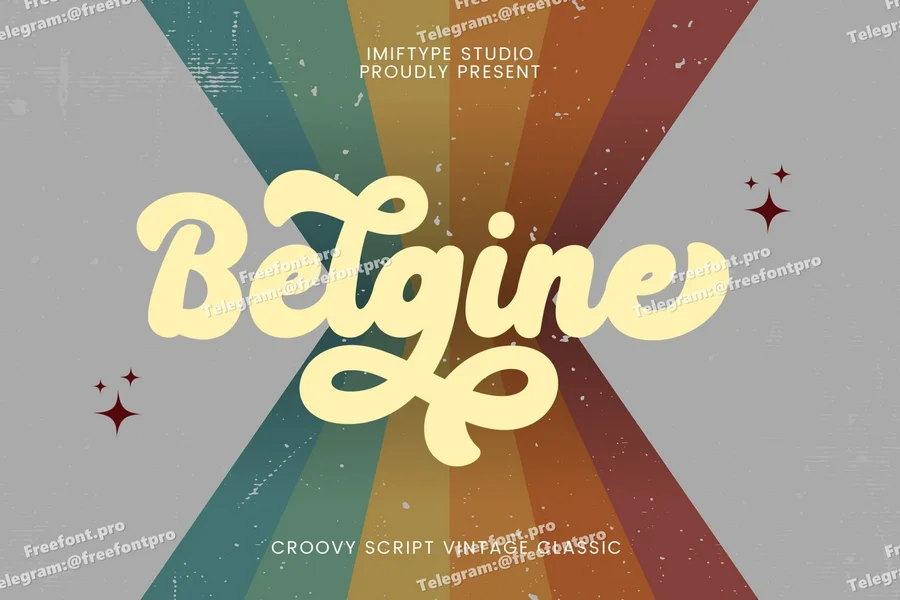
Belgine – Groovy Script Font
Belgine – Groovy Script Font is a playful and retro-inspired script font that brings a touch of nostalgia to your designs. Its rounded letterforms and fun ligatures create a cheerful and inviting atmosphere. Perfect for branding, packaging, and any project that needs a dose of vintage charm.